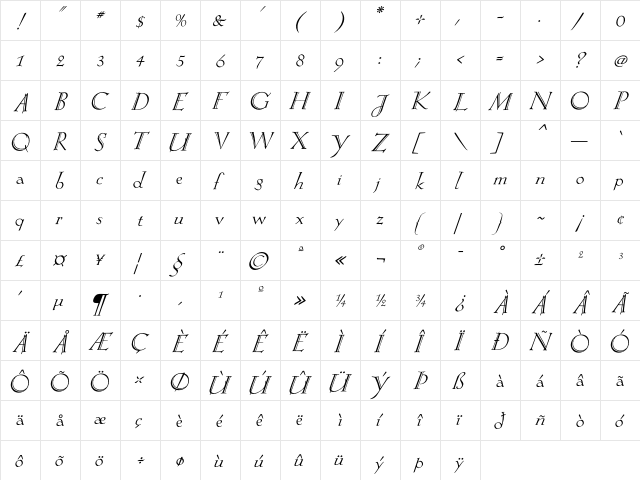
Eva AntiquaLtItSG
Design Context for Eva Typeface
Eva takes a measured approach to typography — its balanced proportions and neutral character make it a reliable workhorse for both digital and print work.